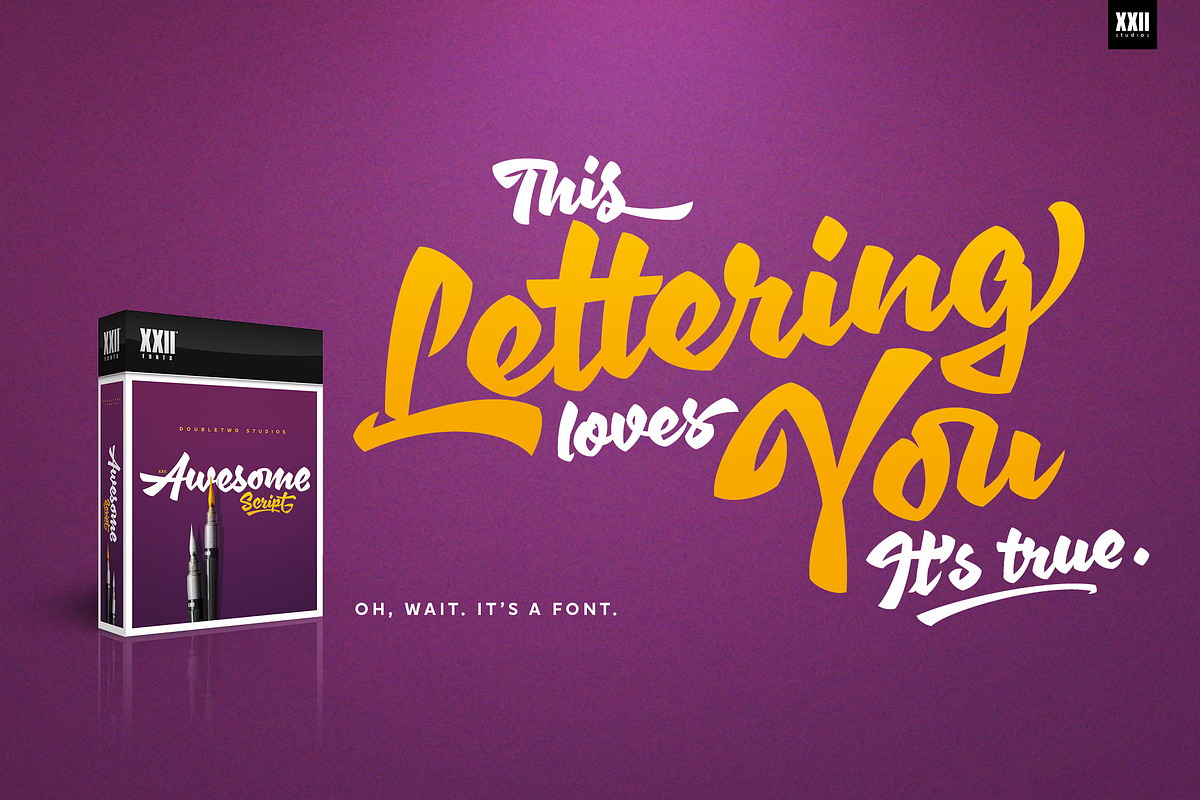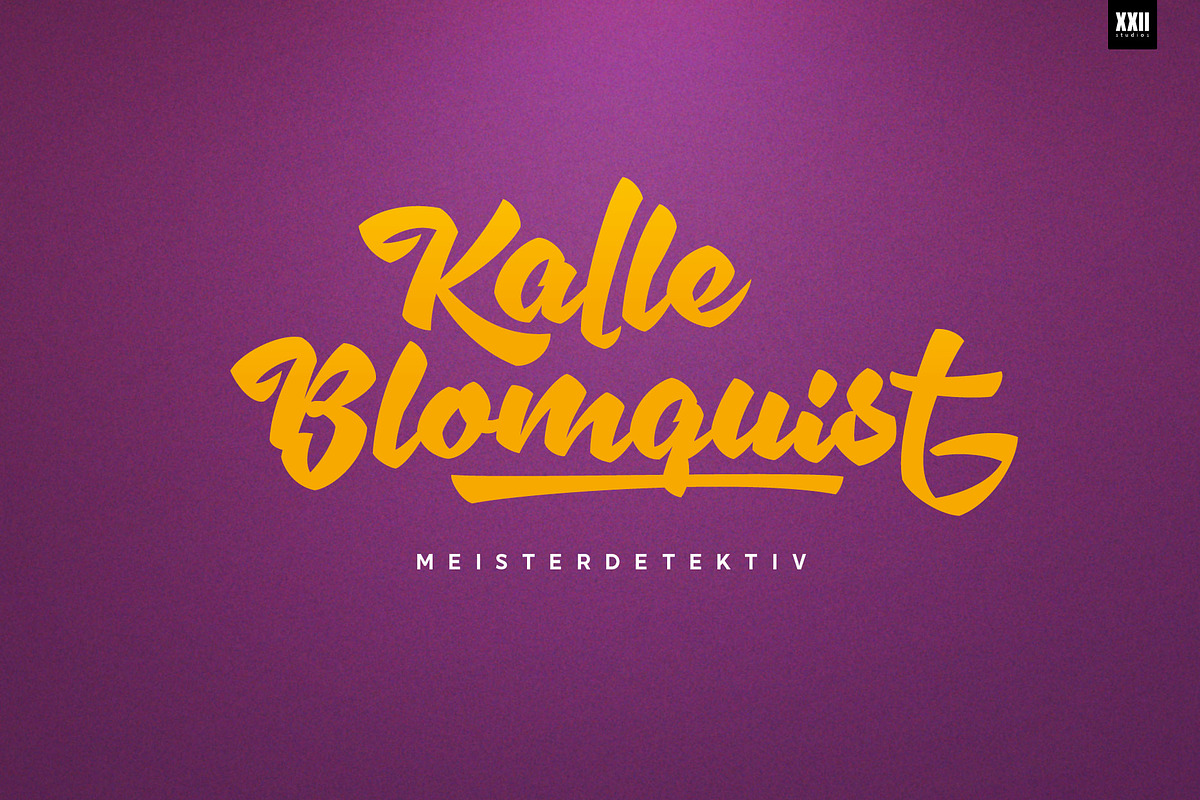
XXII Awesome Script
Doubletwo Studios - XXII AwesomeScript – the brush lettering font.
Lettering is quite popular these days. And one thing is for sure… you are nothing without cool lettering. Here is one possibility to easily get a cool brush lettering result without calligraphic skills or any knowledge of using a brush.
XXII AwesomeScript, that’s more than 1k wonderfully designed letters, ligatures and alternates which may bring a cool and individual handwritten look to your creation. This font is designed to easily create logos, headlines and text phrases within a blink of an eye. Just open your glyphs-palette* and simply chose, from up to 13 different alternates per glyph, the one that fits best for your needs.